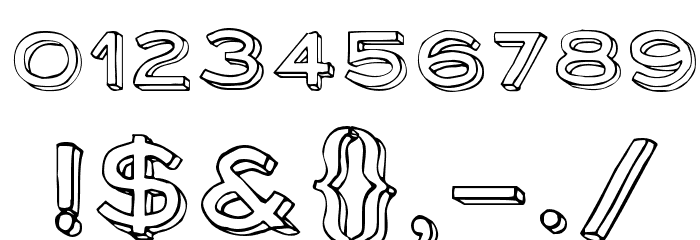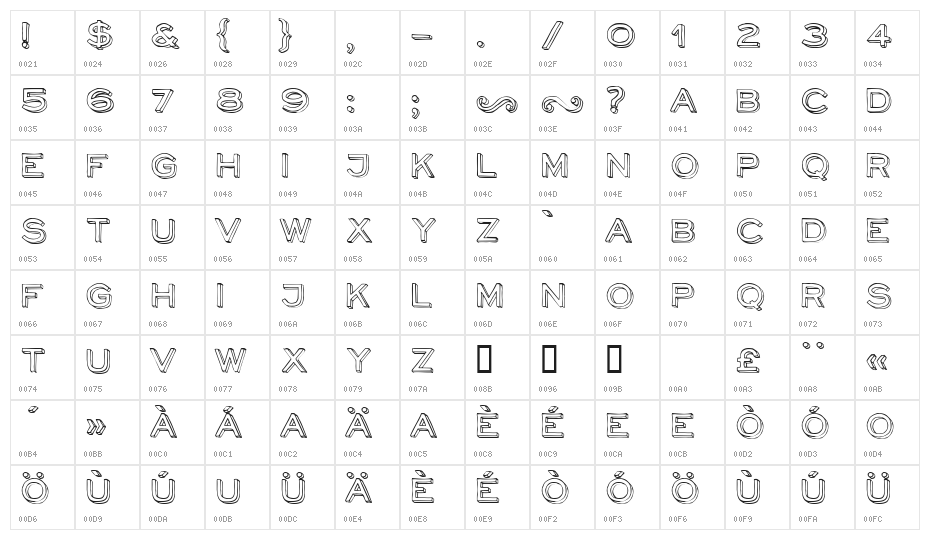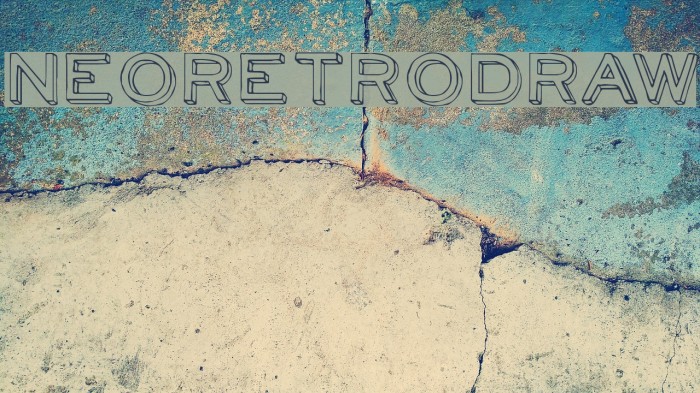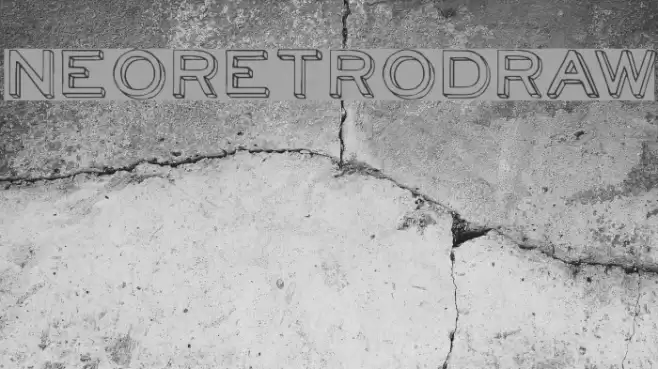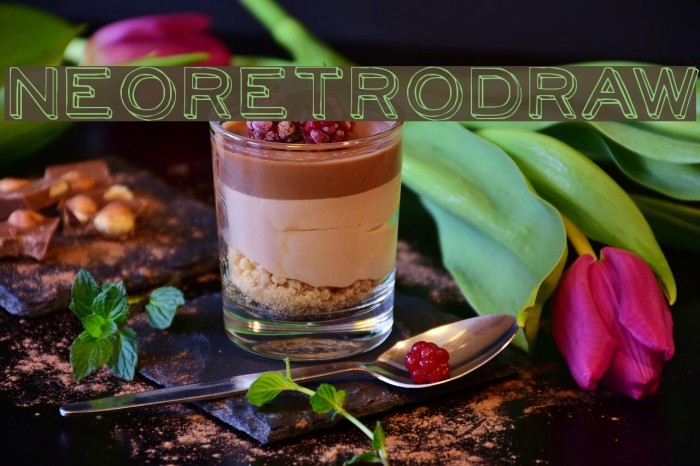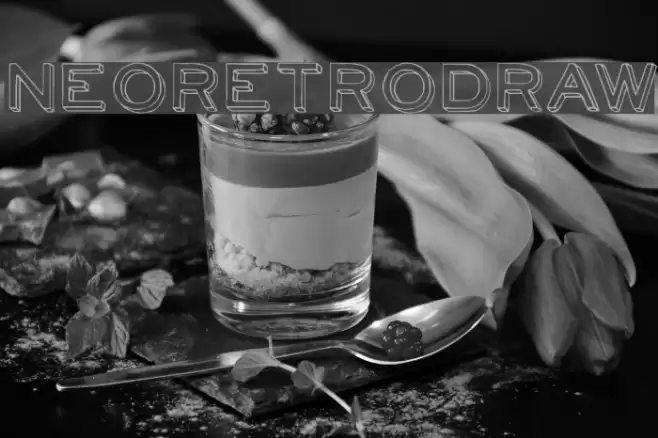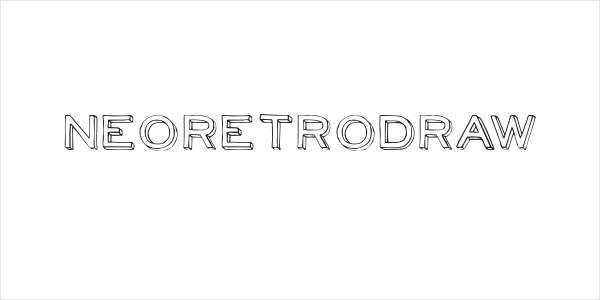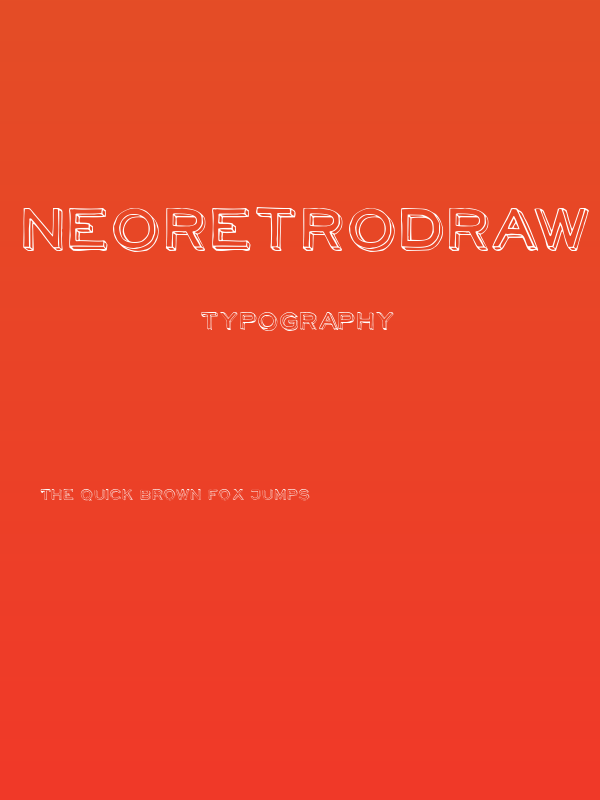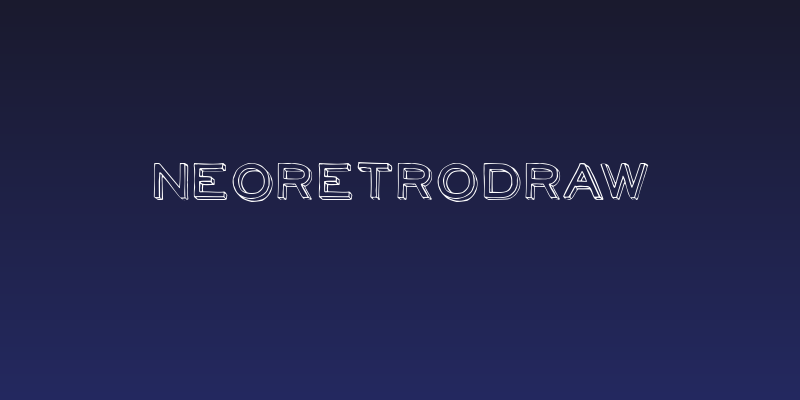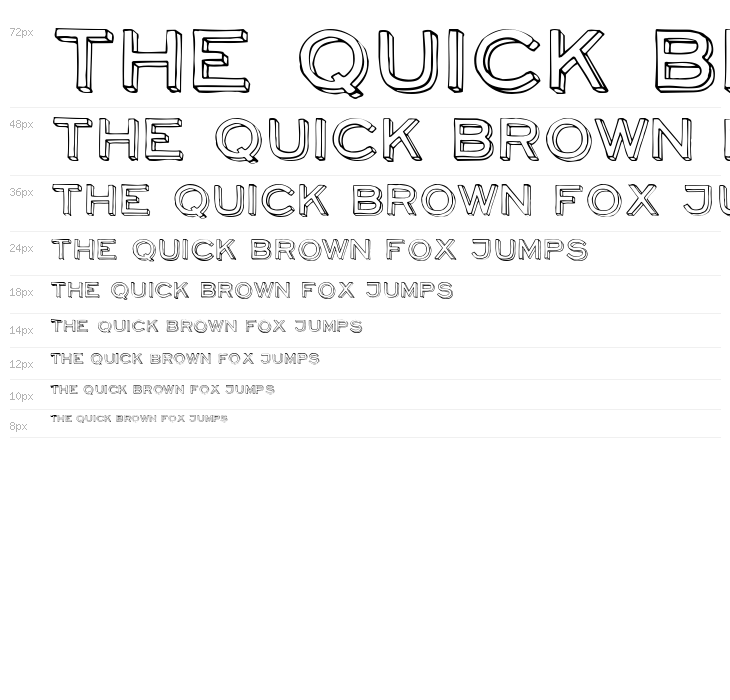
NeoRetroDraw Font
NeoRetroDraw Description
This font features a bold, three-dimensional outline style that evokes a sense of retro-futurism. Each character is designed with a shadow effect, giving it a unique depth and making it stand out on the page. The uppercase letters are consistent in height and width, while the numbers and special characters maintain the same stylistic approach, ensuring uniformity across all glyphs. The font's playful yet structured design makes it ideal for projects that require a touch of nostalgia combined with modern flair.
| Overall Style | Retro-Futuristic |
| Proposed Projects | Ideal for posters, retro-themed designs, video game graphics, and branding that aims to capture a vintage yet modern aesthetic. |